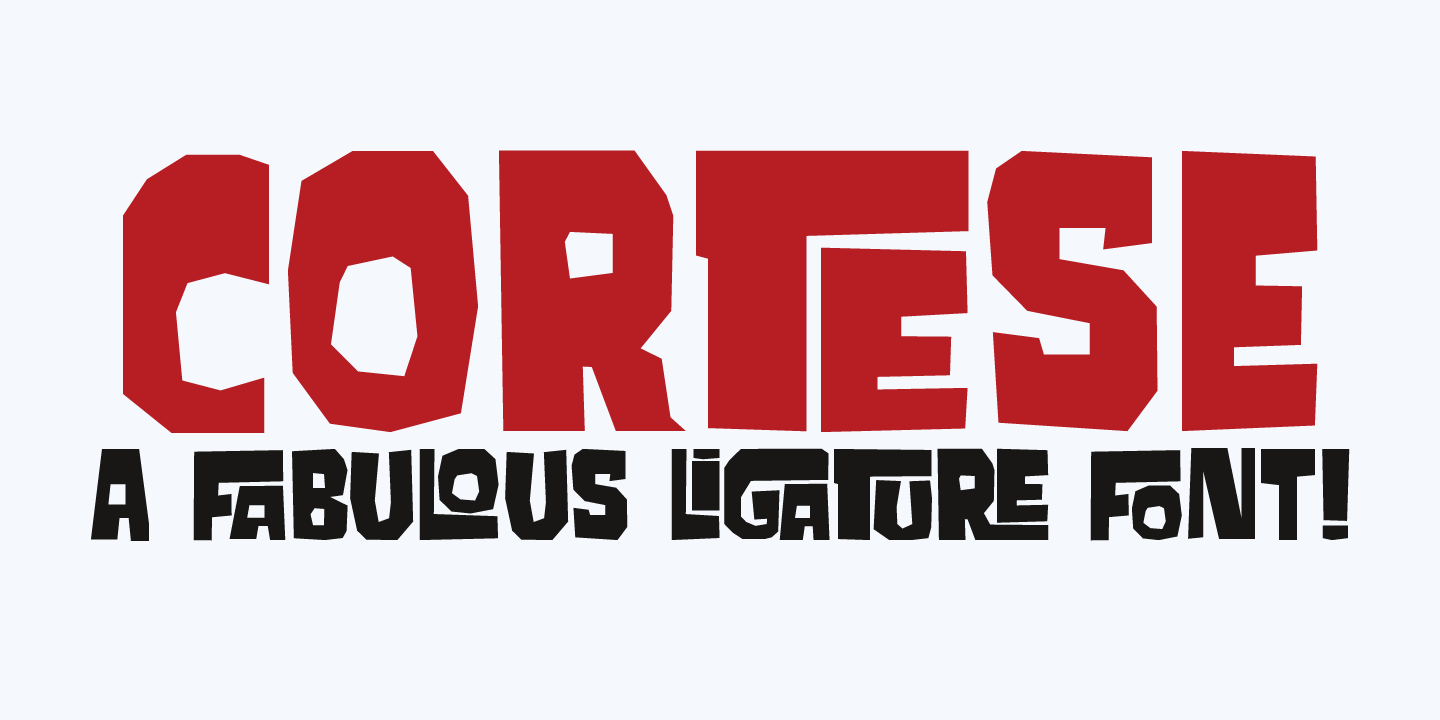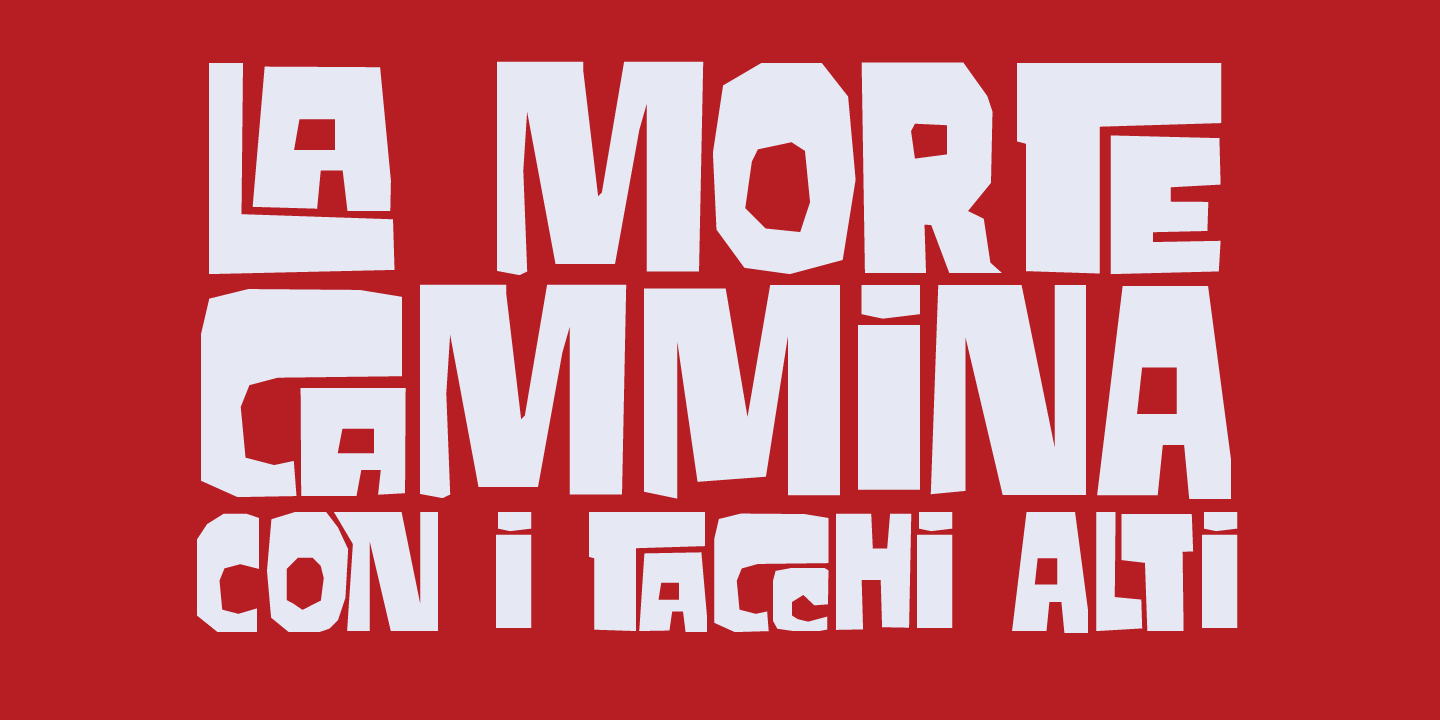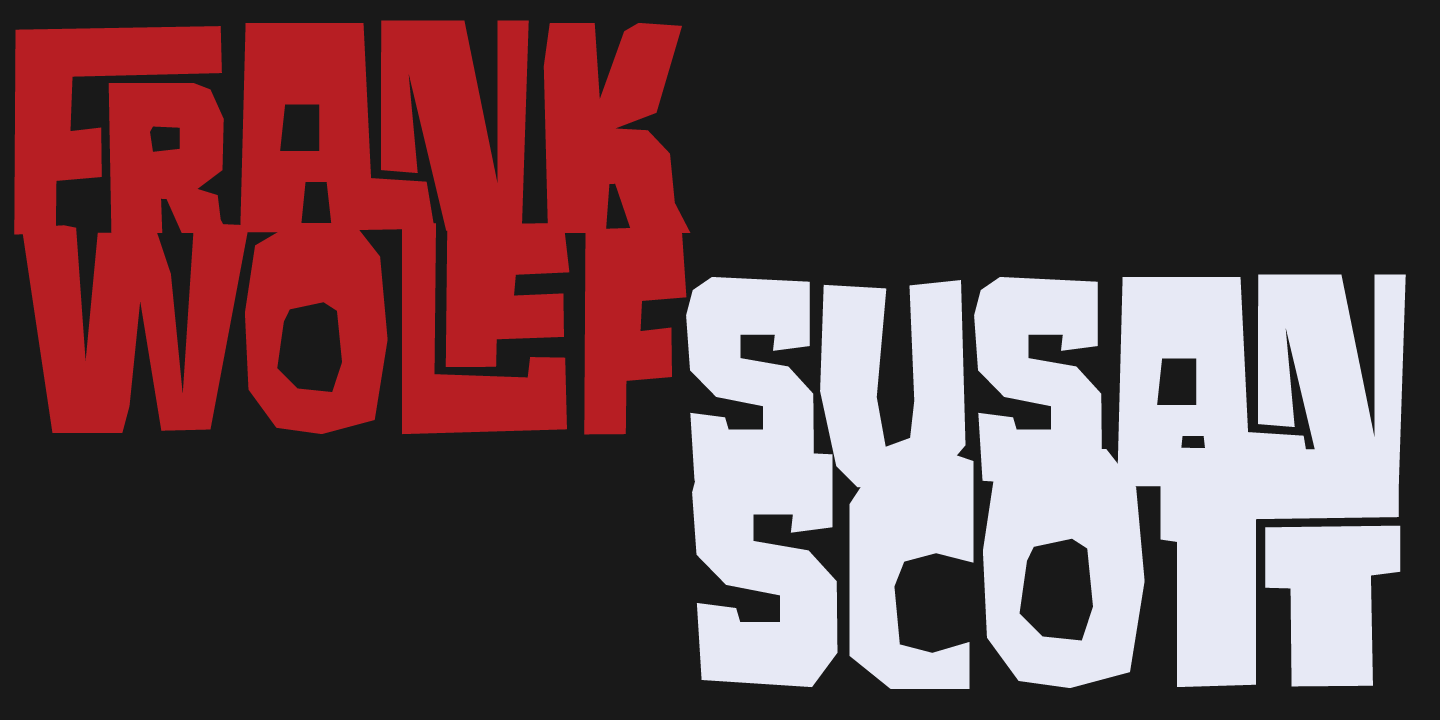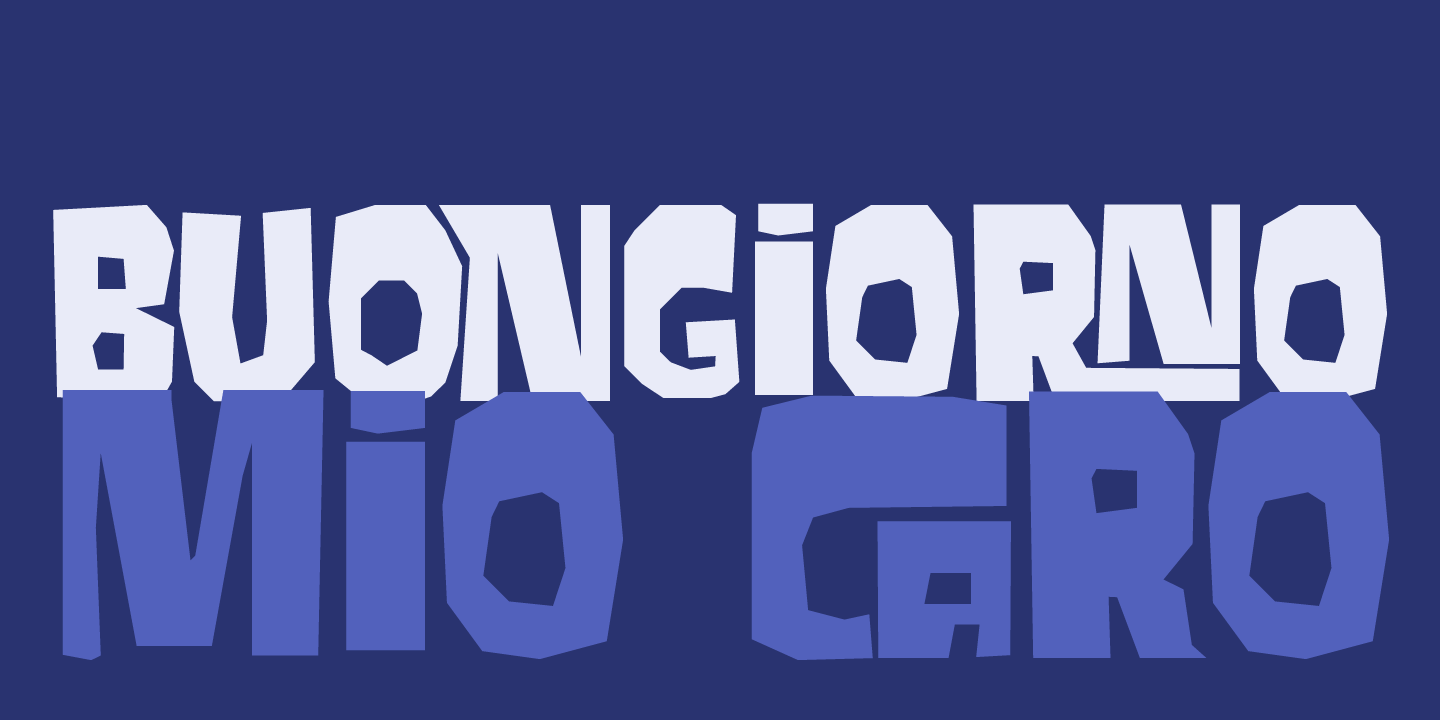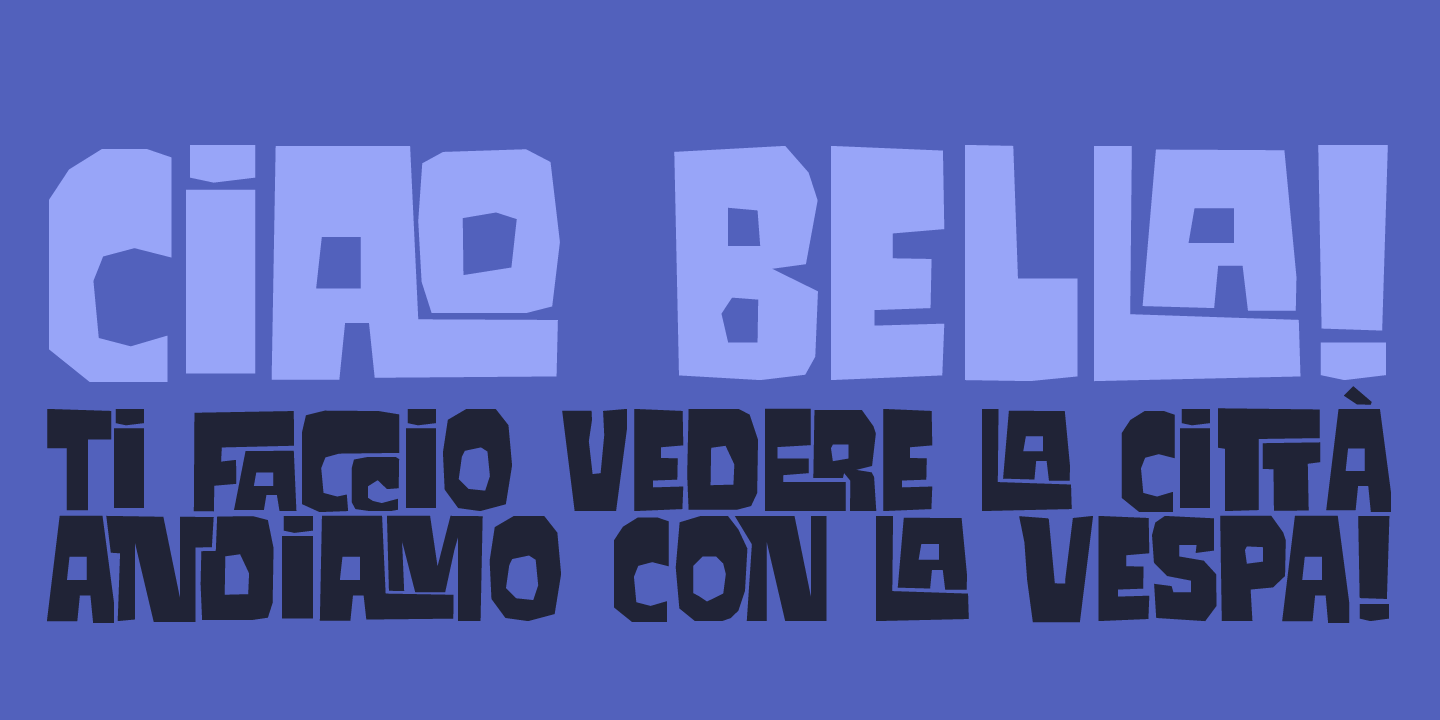
Cortese
As usual, I stumbled upon a great 1971 Italian movie poster when looking for something else. The poster for ?La Morte Cammina Con I Tacchi Alti? (directed by Luciano Ercoli), was made by an unknown artist and comes with a great font. Cortese was based on this movie poster font, but as I started working on the glyphs, I figured they would even look better in ligatures. So here it is: Cortese font - complete with 135 ligatures, accents and even Greek and Cyrillic!
Cortese by Hanoded